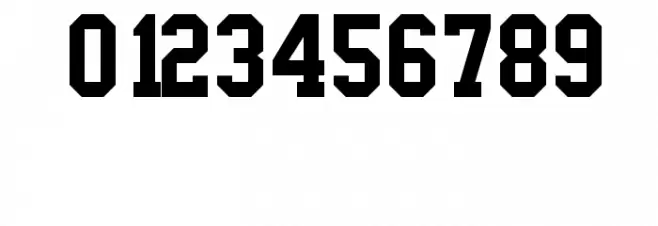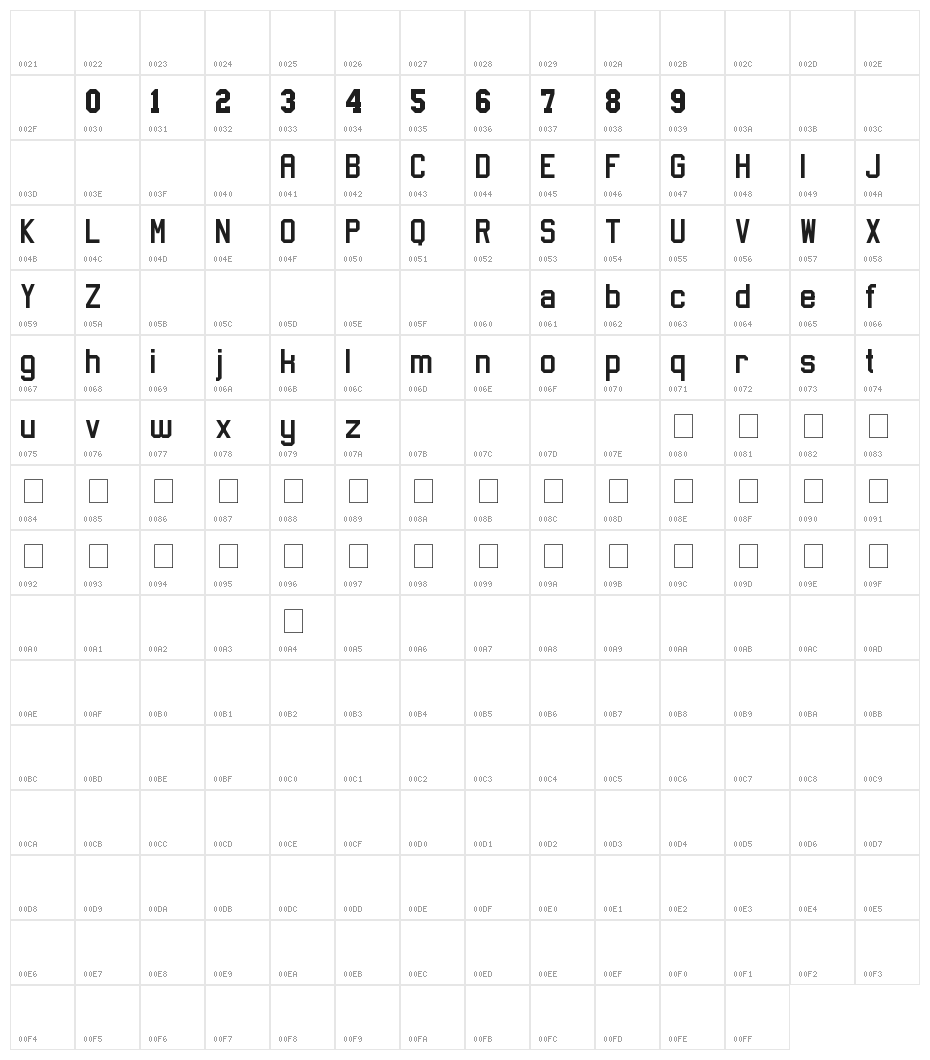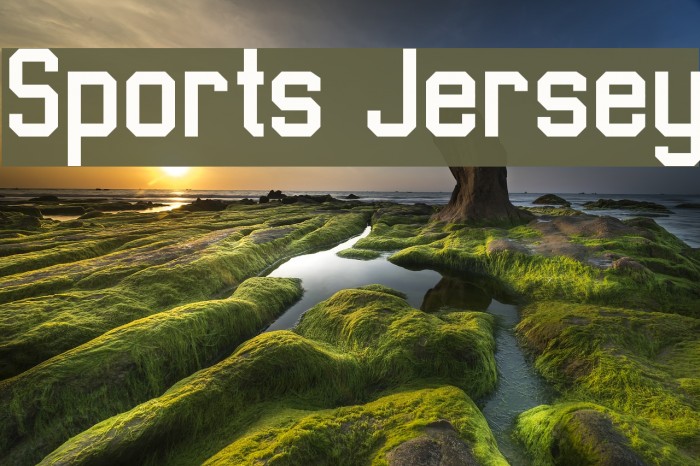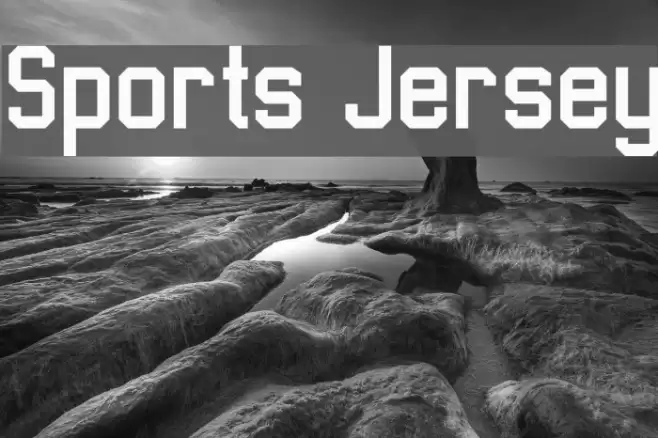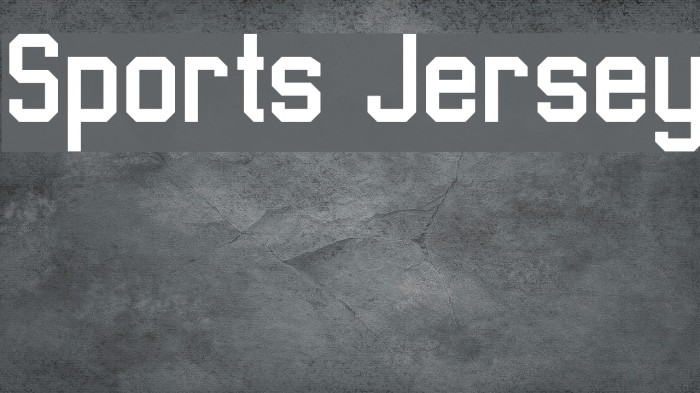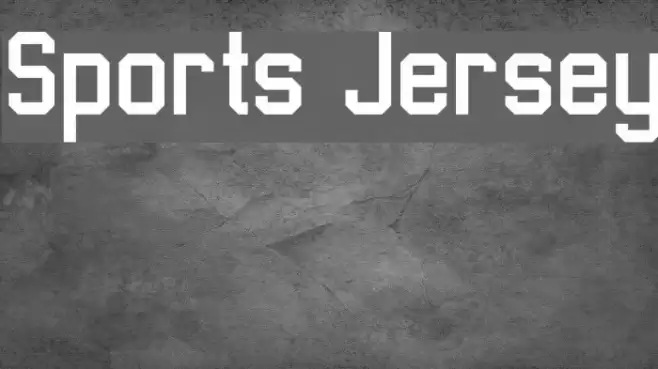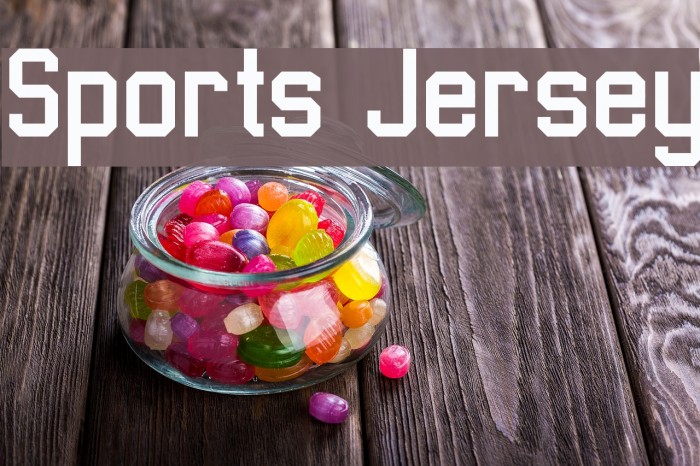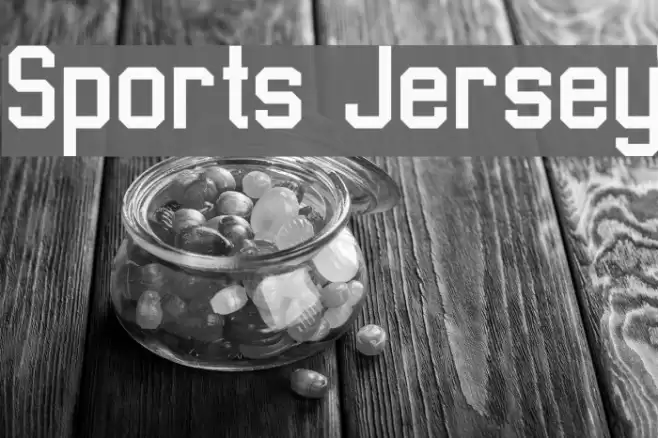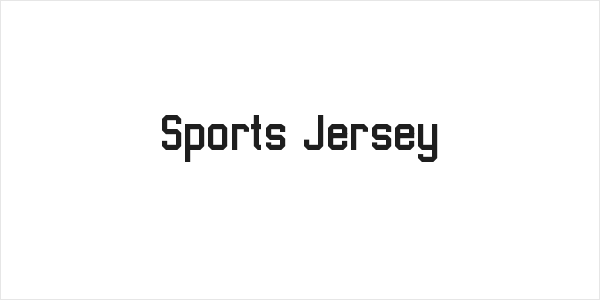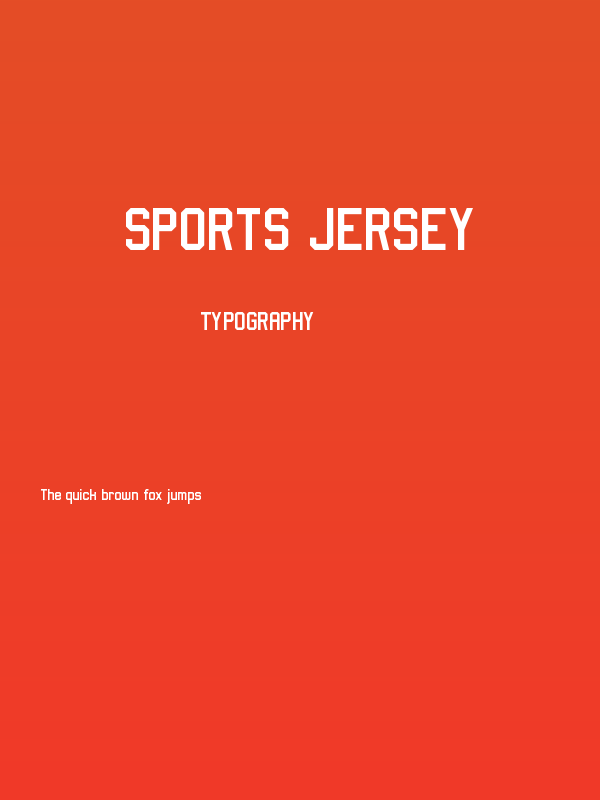
Sports Jersey Font
Sports Jersey Description
This font features a bold, geometric design with strong, angular lines and a sporty aesthetic. The uppercase letters are uniform in height, with a blocky appearance that conveys strength and stability. The lowercase letters maintain the same geometric style, offering consistency across the typeface. The numerals are equally bold, making them ideal for visibility and impact. This font's design is reminiscent of sports jerseys, with a focus on readability and a dynamic presence. It is well-suited for applications that require a bold statement, such as team branding or athletic apparel.
| Proposed Projects | Ideal for sports team branding, athletic apparel, event posters, and merchandise. |